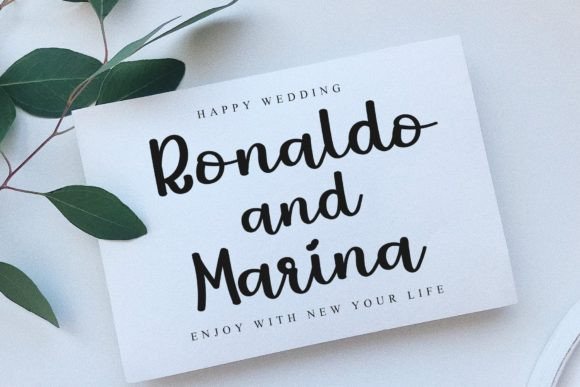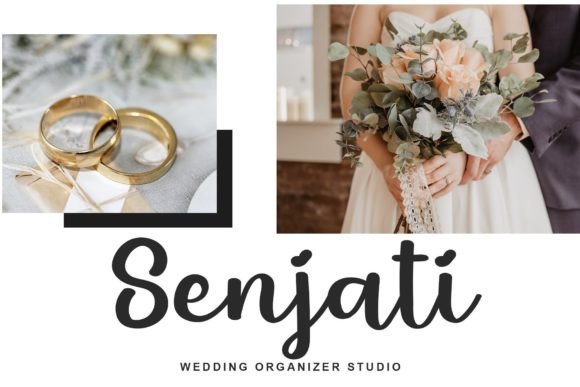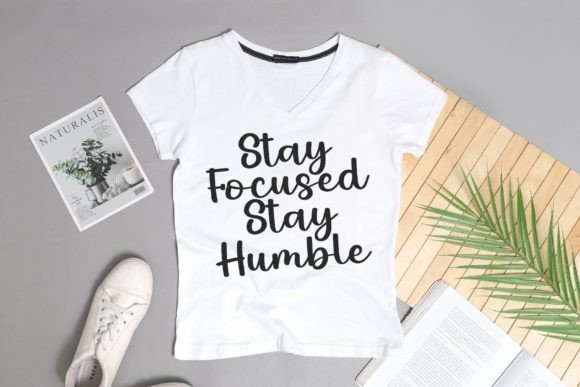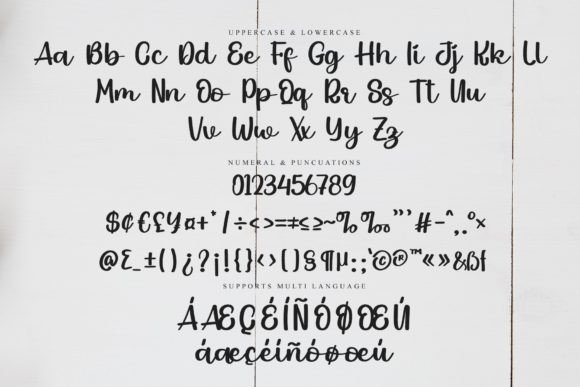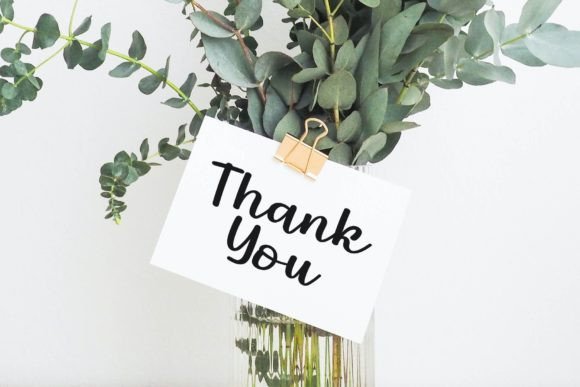
About Mostly Font
“Mostly” is a delightful and friendly handwritten font that radiates charm and creativity. Its playful and approachable style can transform any design idea into a standout masterpiece. With its unique character and warm energy, this font inspires creativity and allows you to craft lovely and engaging designs.
Whether you’re working on greeting cards, social media posts, invitations, or any other creative project, “Mostly” adds a touch of fun and friendliness. Its versatile nature makes it suitable for various applications, allowing you to infuse your designs with a sense of joy and creativity.
Embrace the unique charm of “Mostly” to create captivating and eye-catching designs. Let its friendly demeanor and playful spirit bring your creative visions to life. Whether you’re designing for personal projects or professional endeavors, “Mostly” will add a delightful and approachable touch to your work, making it truly standout and memorable.